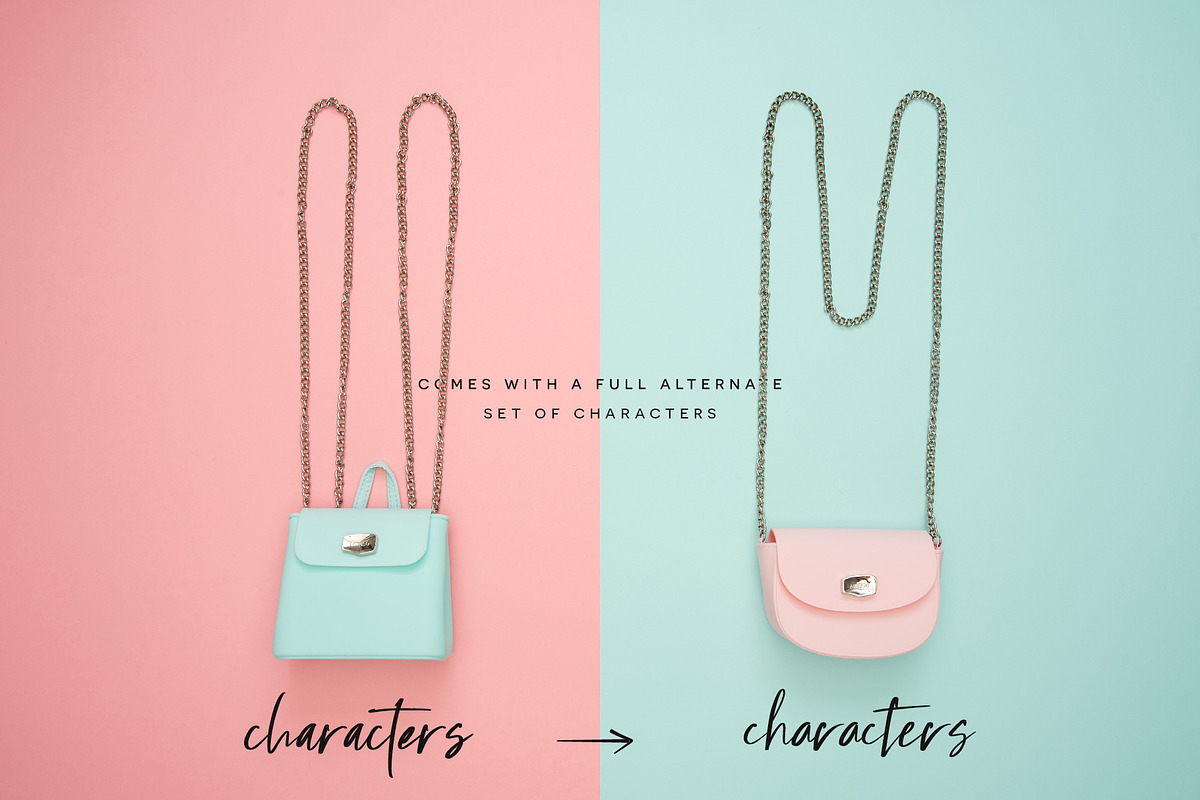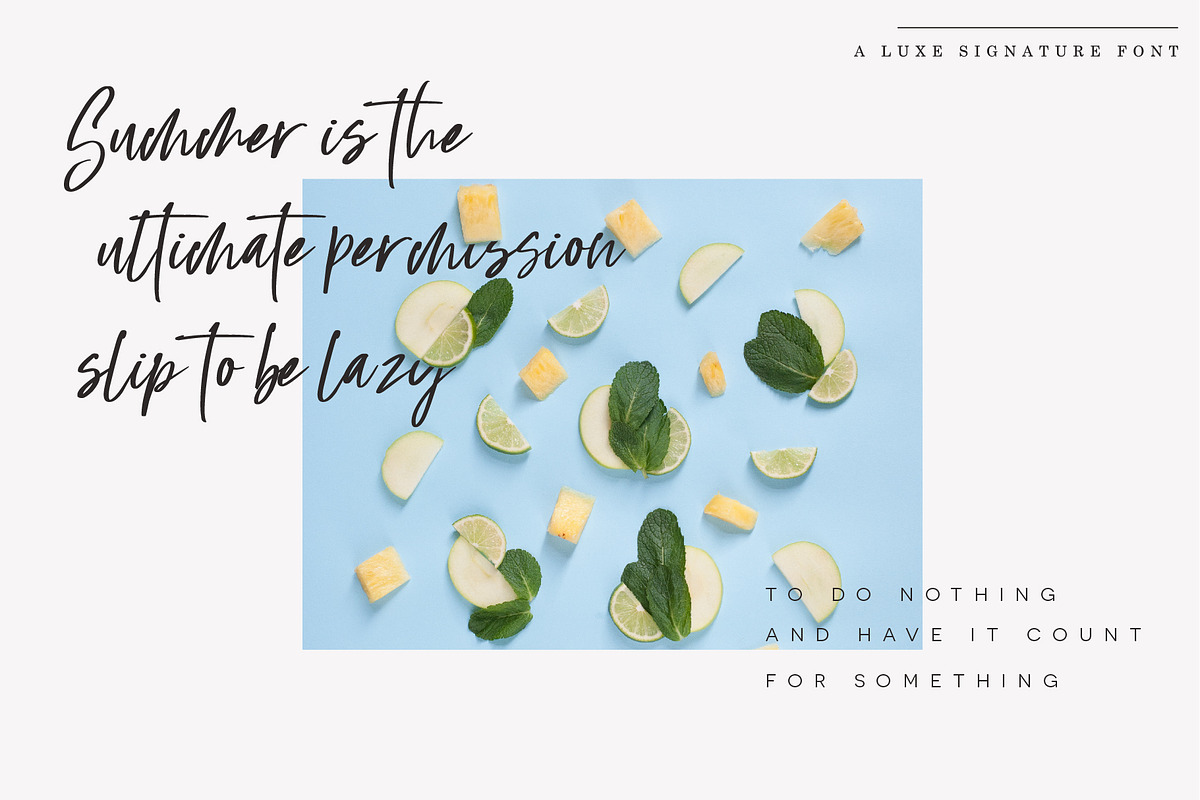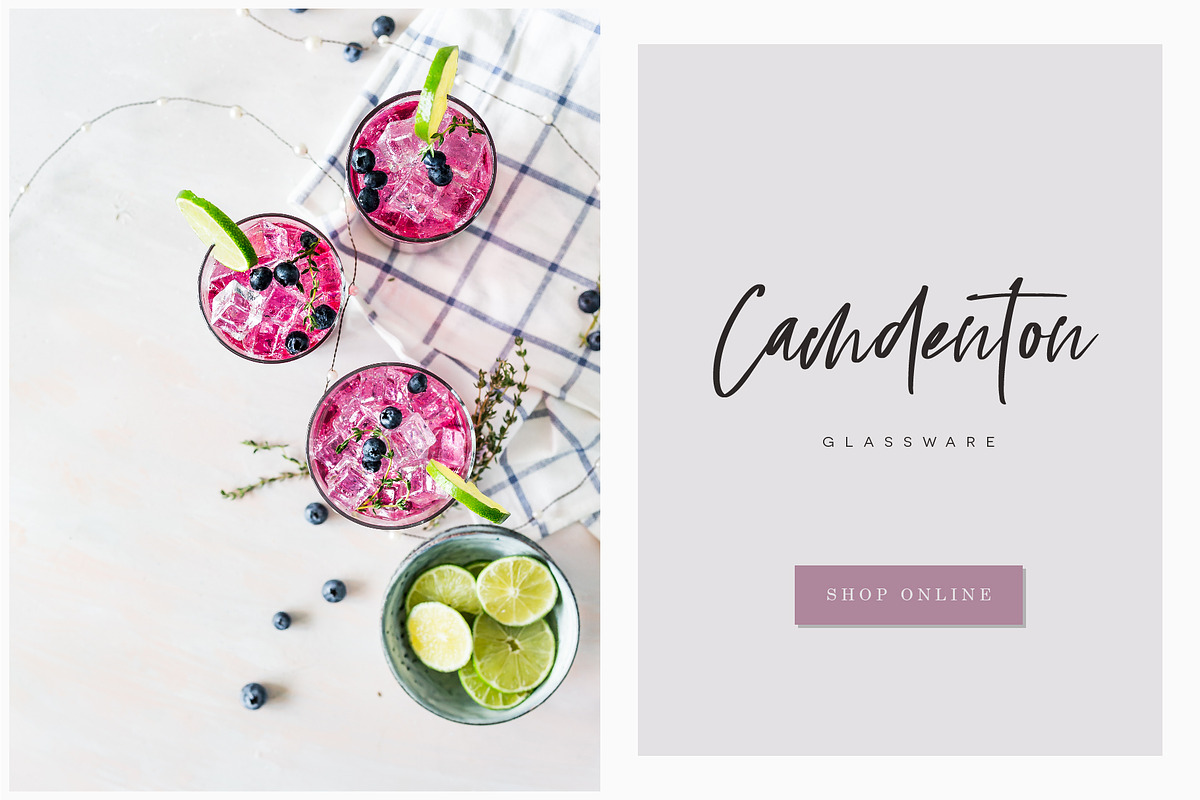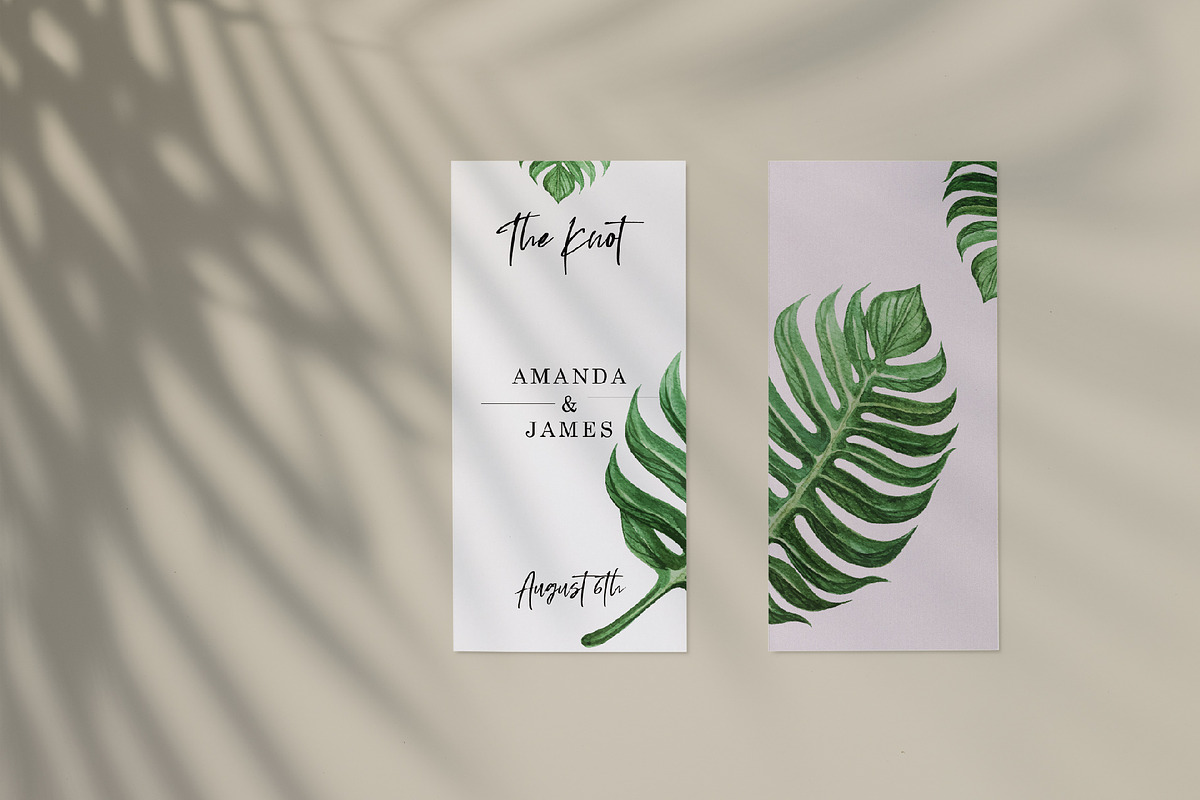
Summer Break Font
Summer Break is a lively signature font intentionally crafted to give your designs new life! Throw it up on your businesses social media posts, use it in logos, slap it on a tshirt! This typeface is designed to make you feel like you're on the beach with a salty margarita in your hand. So enjoy!